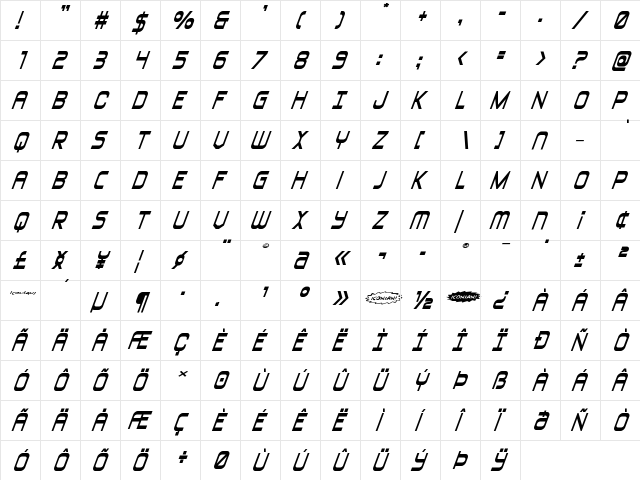
Blizzard Shaft Wide Super-Ital Regular
Design Context for Blizzard Shaft Wide Super-Ital Typeface
Blizzard Shaft Wide Super-Ital takes a measured approach to typography — its balanced proportions and neutral character make it a reliable workhorse for both digital and print work.